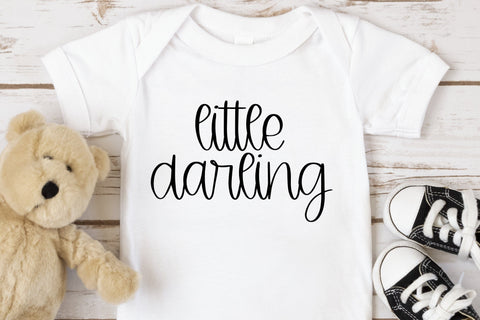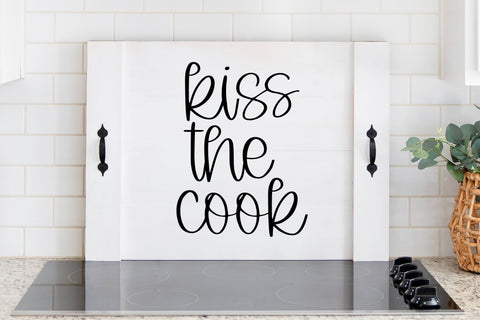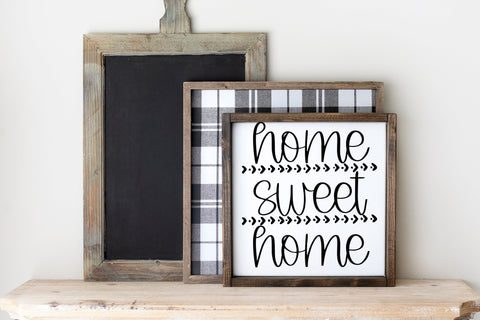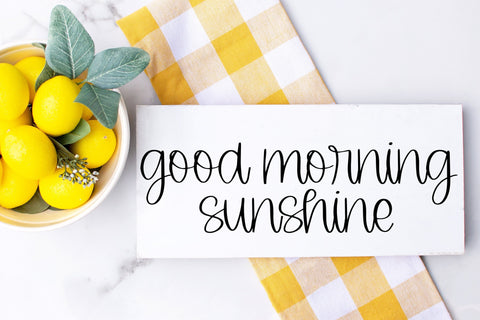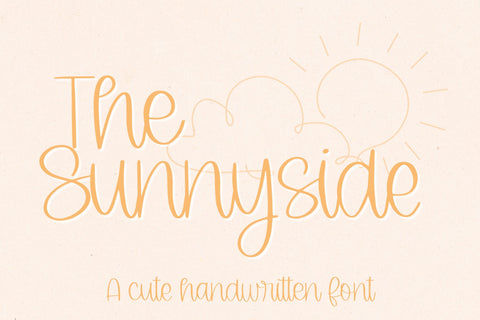
The Sunnyside, a cute handwritten font, handwriting fonts for cricut
Introducing The Sunnyside, our adorable Cute Script Font, perfect for all your creative projects! Whether you're a Cricut enthusiast or simply looking for a charming cursive font, this handwritten gem is exactly what you need. With its elegant curves and smooth strokes, our cute script font brings a delightful touch to invitations, greeting cards, and personalized crafts. Crafted specifically for Cricut users, this font is perfect for your Cricut font SVG designs, ensuring seamless compatibility with your cutting machine. Transform your designs into stunning works of art with our versatile Cute Script Font, the ultimate choice for anyone seeking a captivating and expressive typeface for their projects. Shop now and let your imagination soar!